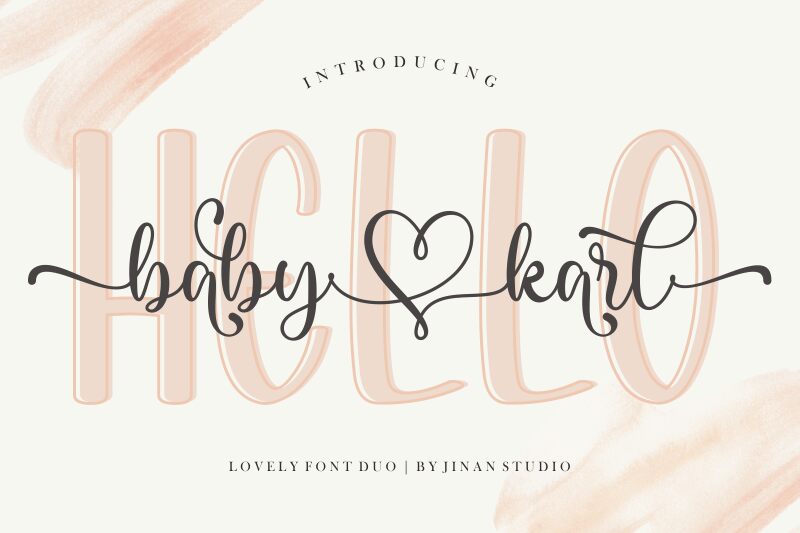
Hello Baby Karl Script font, designed by Ainun Jinan, is a free handwritten font with an elegant and decorative style. With its sophisticated and expressive lines, this artistic typeface stands out in occasions where an eye-catching look is required to your design.
Use this font in branding and packaging designs. Craft unique logos with Hello Baby Karl or prepare elegant invitations for weddings or personal events. It’s also suitable for website headers, magazines covers, social media posts, personal business cards, professional presentations etc.
Hello Baby Karl Script